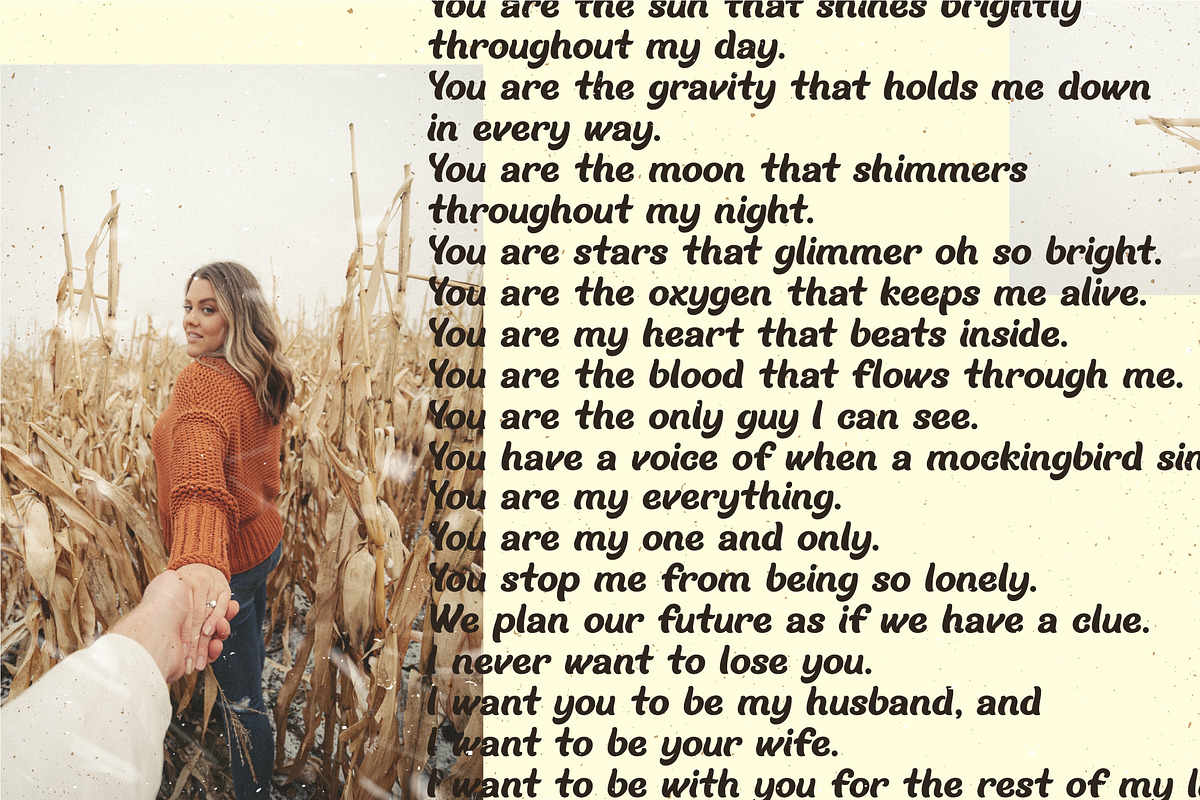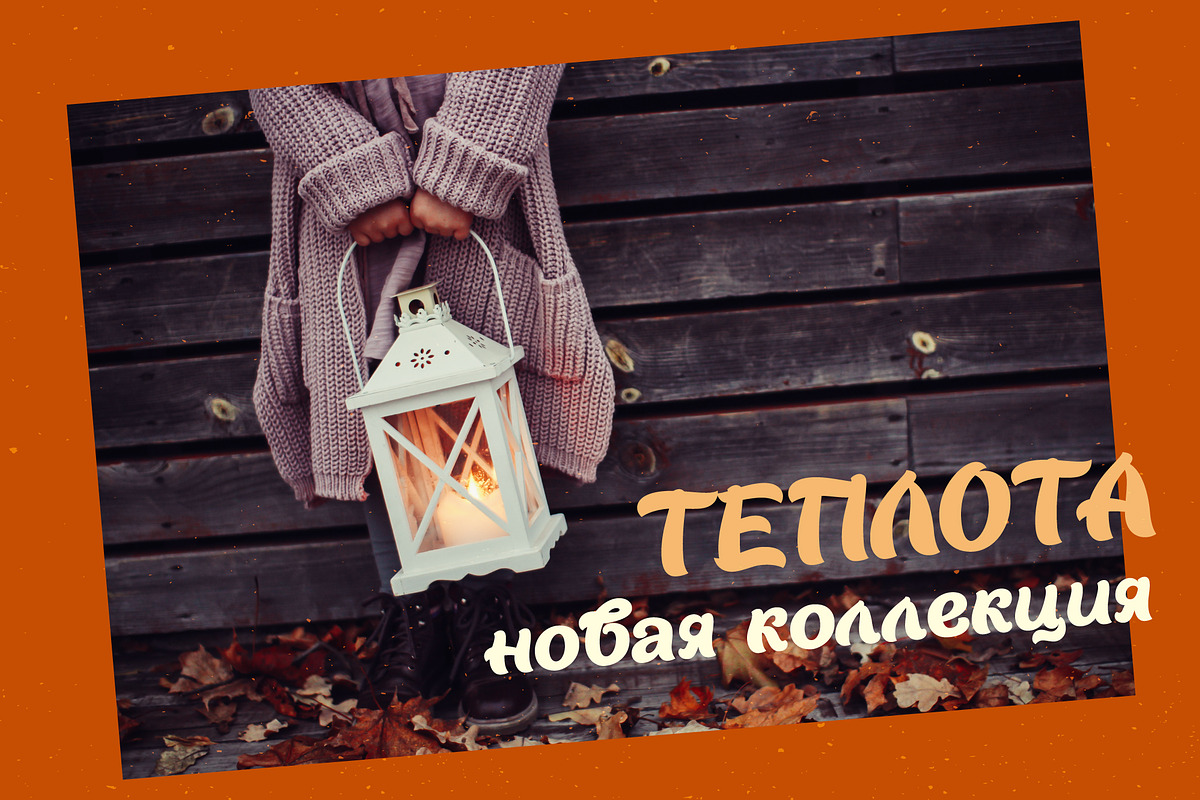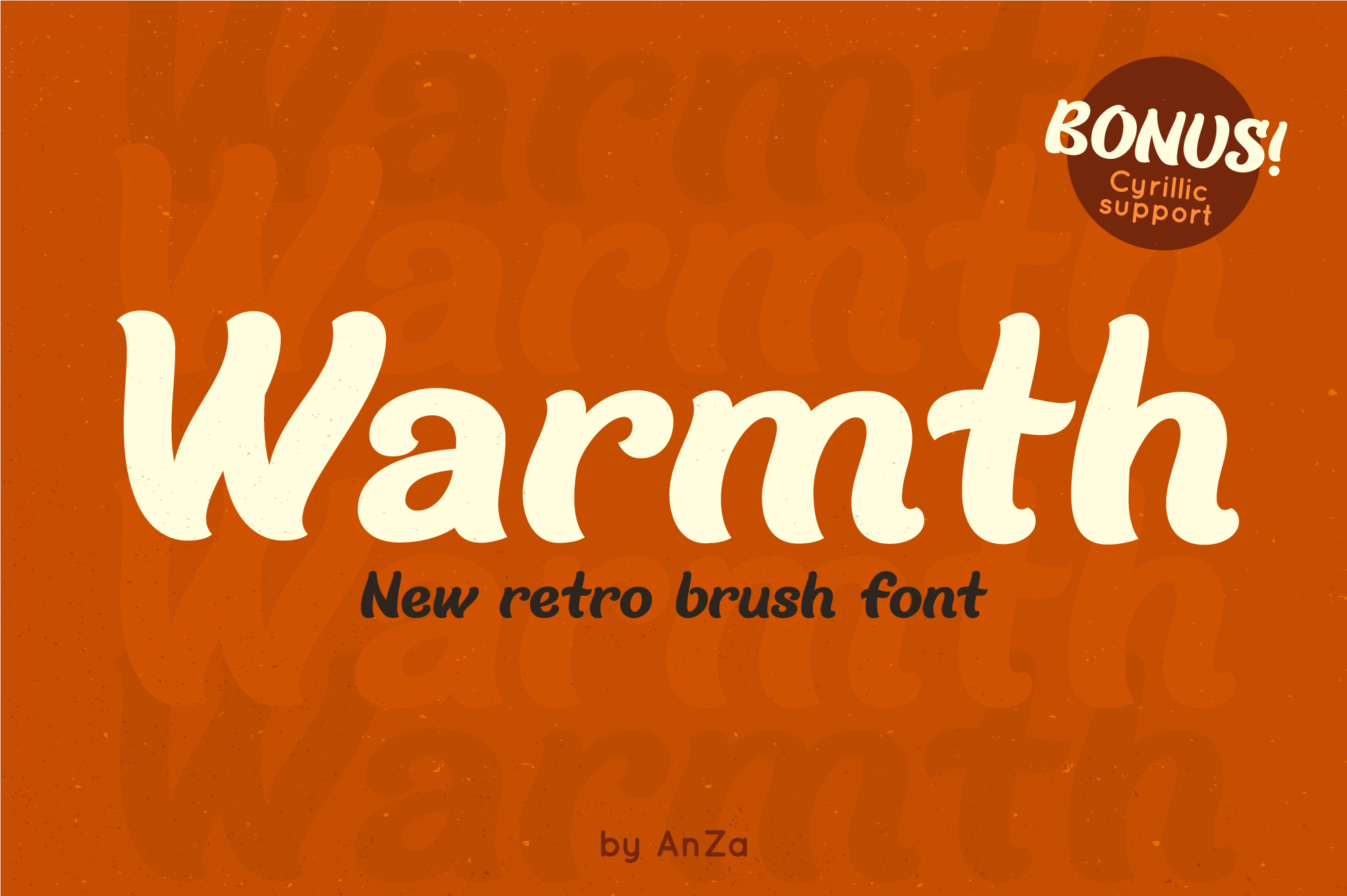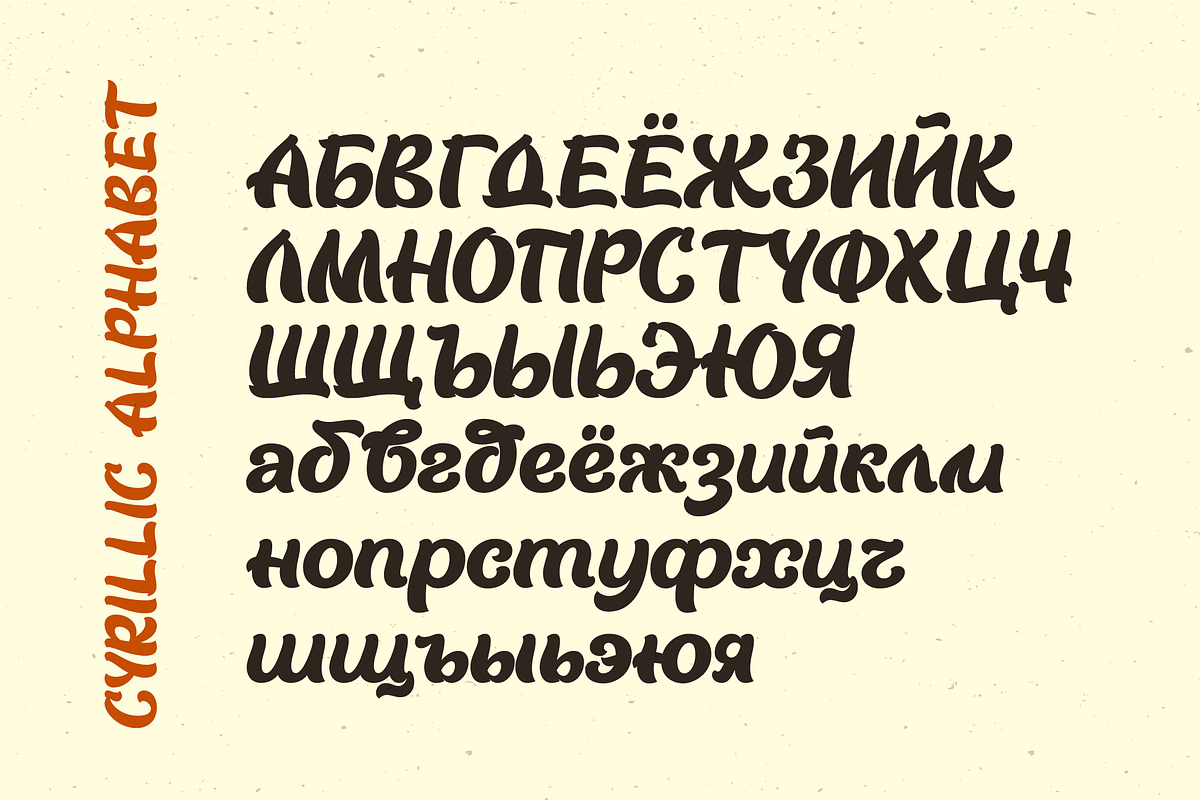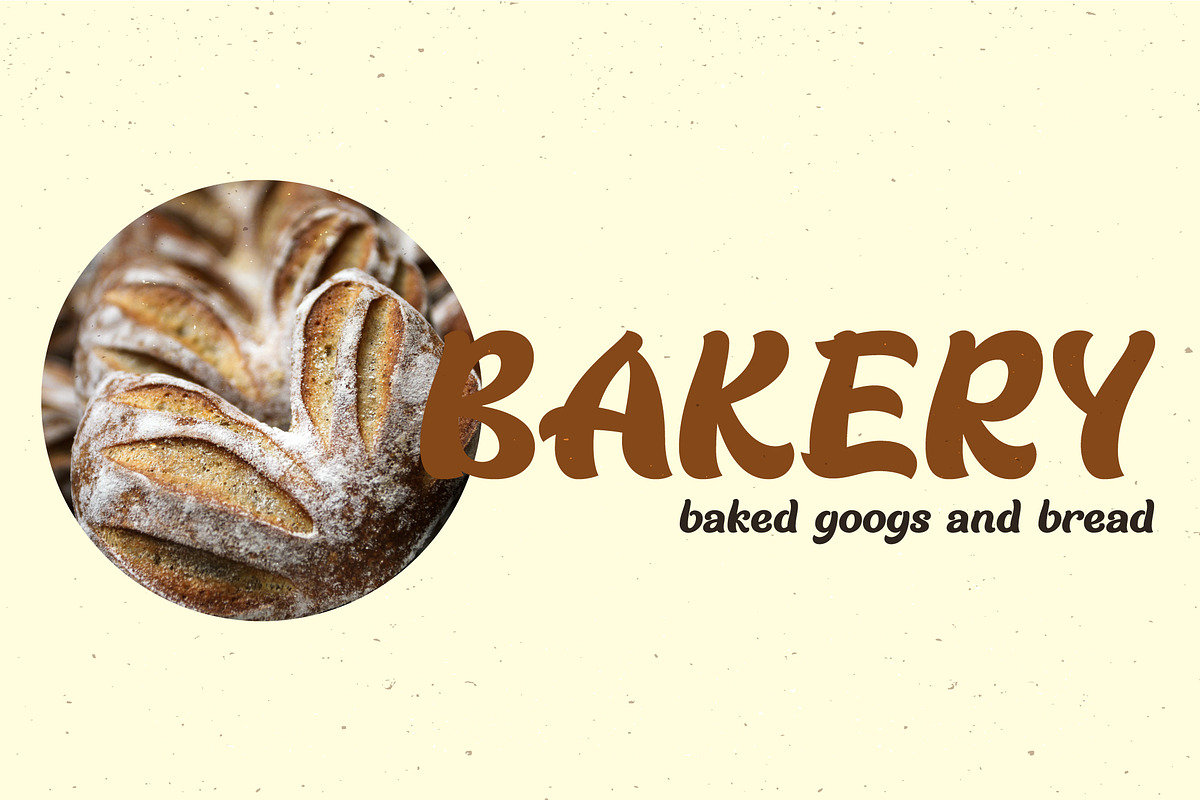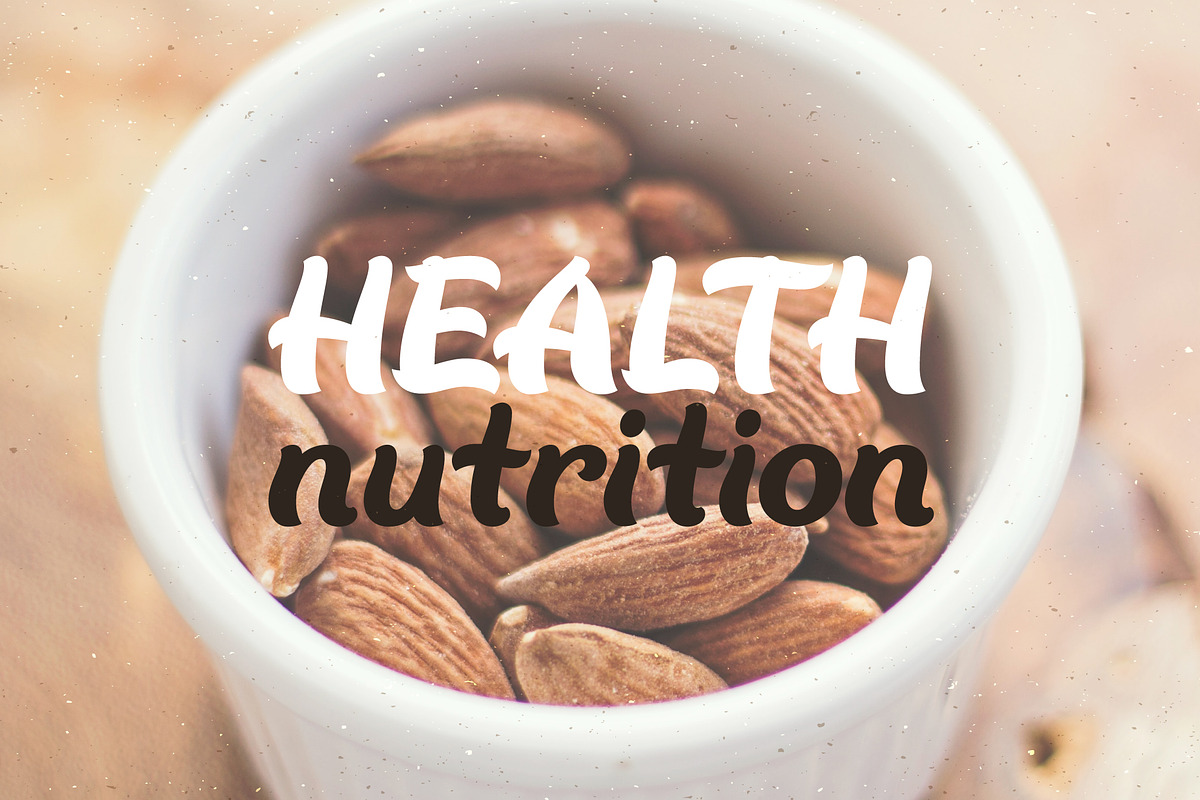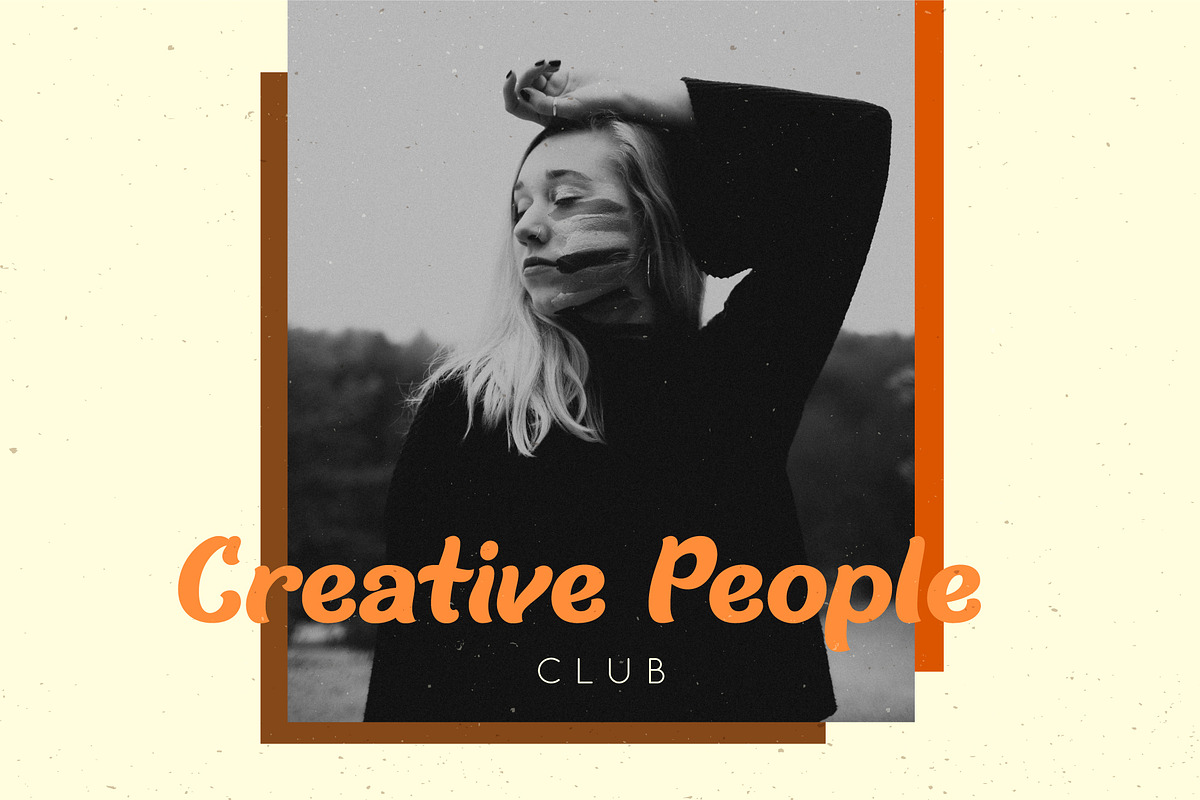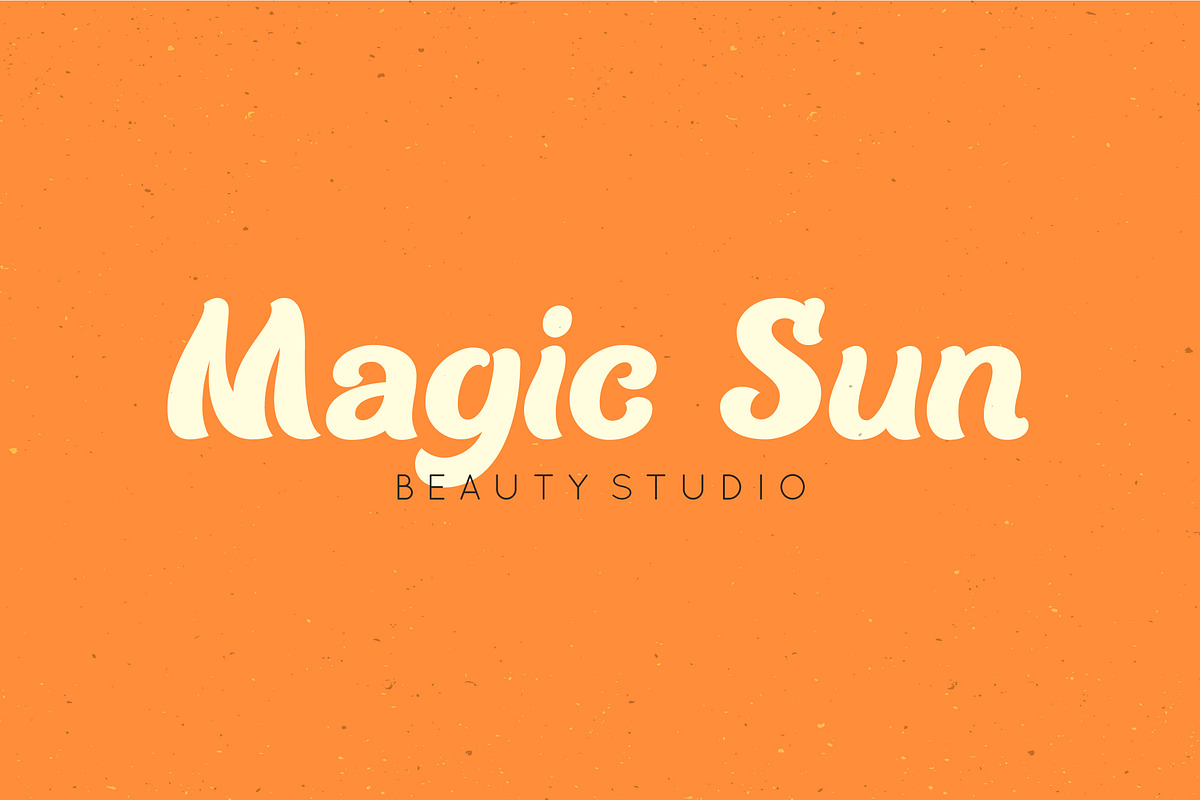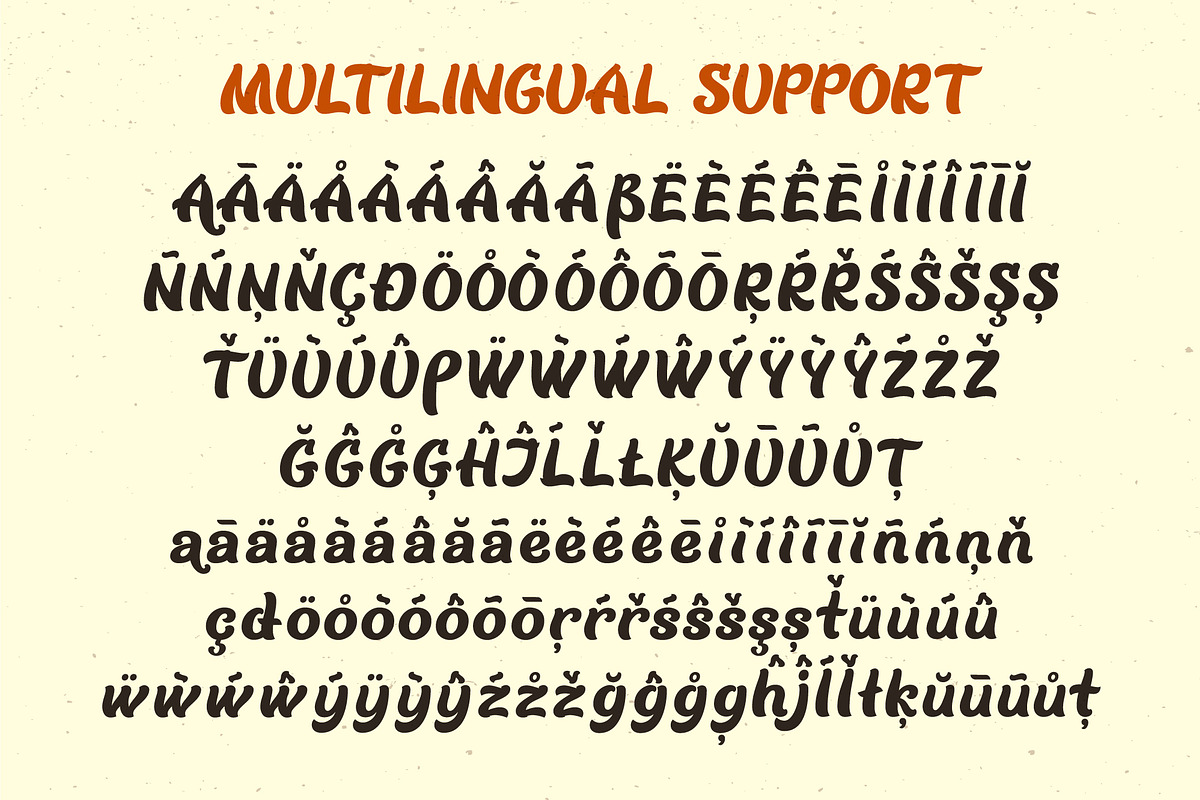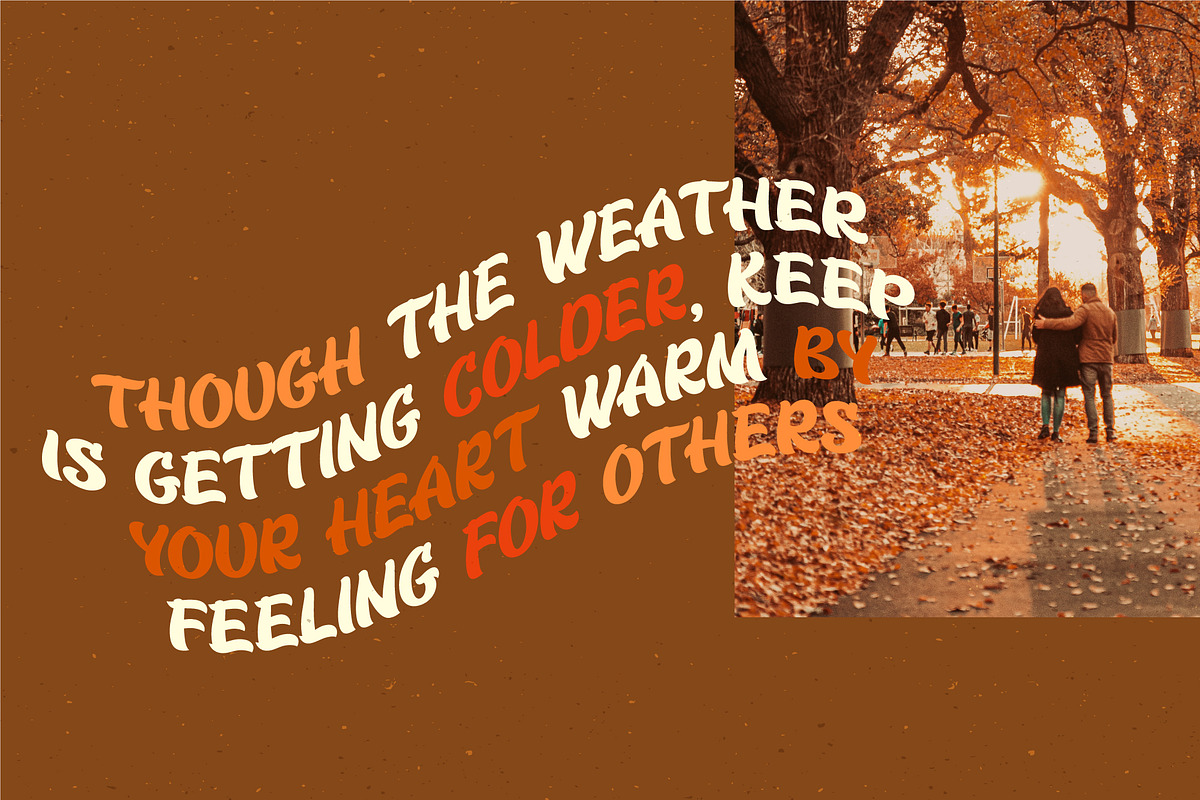
Warmth - retro brush bold font
It has both modern and vintage look - clear, rounded, elegant and soft. This font was designed to bring more warm and touching emotions to everyday life.
Warmth is a very versatile font, suitable for a different project types: for magazine publishing, fashion and art, works great in blogs, posters, flyers, logos, headlines, packaging, advertising, wedding invitations, branding and so much more.
Warmth font has uppercase, lowercase letters, numbers & basic punctuation, multilingual support (French, German, Italian, Norwegian, Portuguese, Spanish, Swedish, Swiss German). It has also Cyrillic glyphs.